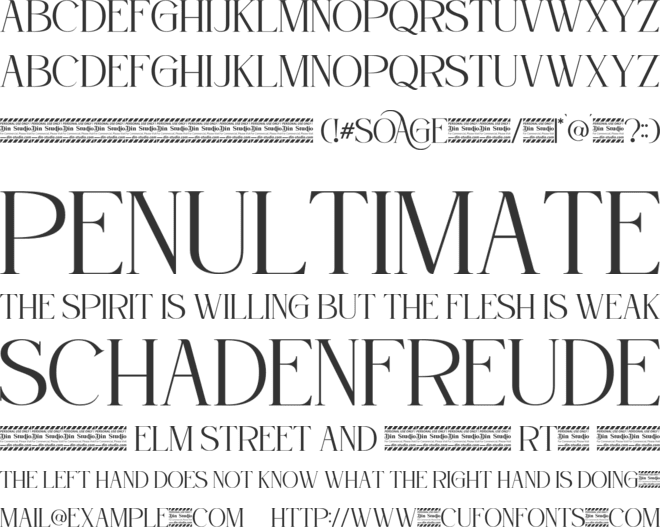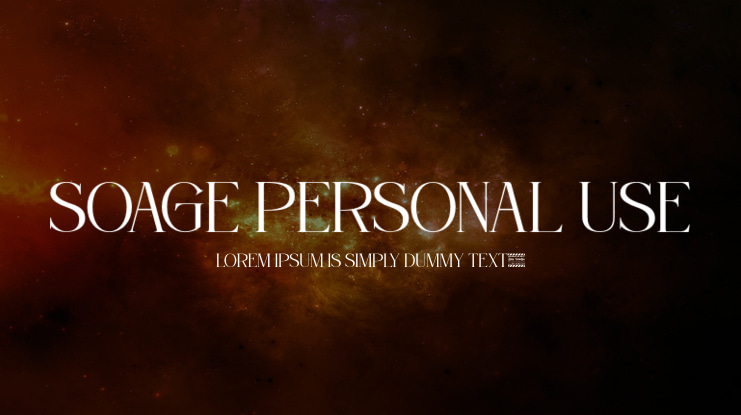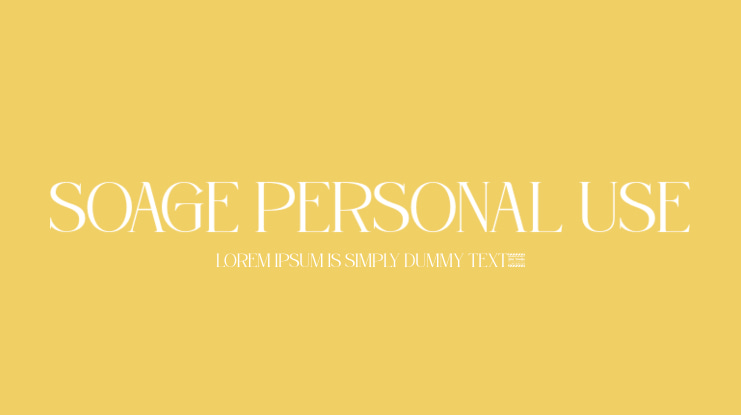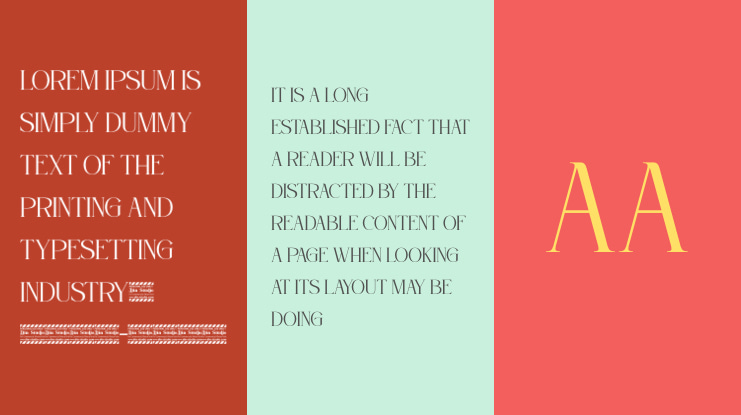
Soage is modern serif font. Made for any professional project branding. It is the best for branding, printing, wedding and quotes. Every letter has a unique and beautiful touch.